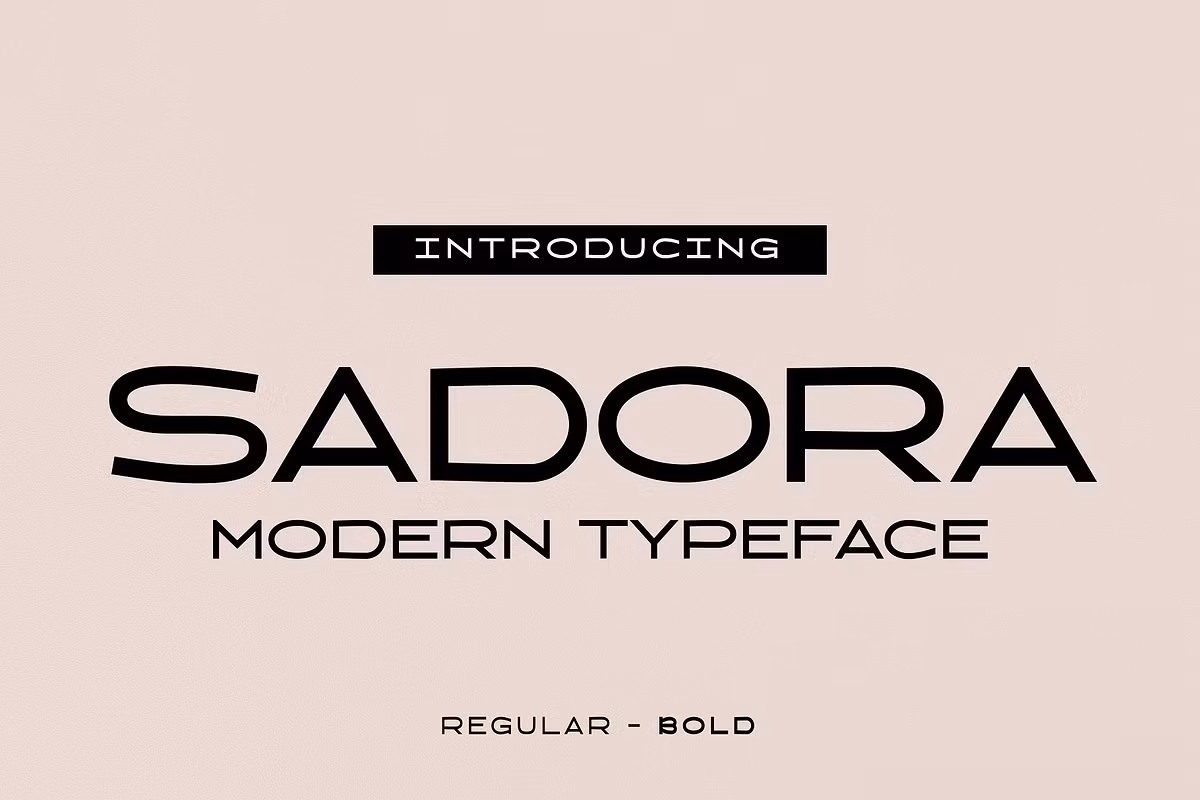
You must purchase this font for commercial use. However, you can download Sadora – Sophisticated Modern Sans Font Free Download for testing purposes. Sadora is a clean, refined sans-serif font that embodies elegance, clarity, and modern minimalism. Perfect for luxury branding, web design, fashion editorials, product packaging, and corporate identities, Sadora delivers a professional and polished look in every use.
With its balanced letterforms, smooth curves, and versatile structure, Sadora offers excellent readability across both print and digital formats. Its modern simplicity allows it to pair beautifully with serif fonts or stand confidently on its own. Whether you're designing a sleek logo, building a stylish website, or creating high-end marketing materials, Sadora – Sophisticated Modern Sans Font Free Download is the ideal typeface to test your creative ideas. Be sure to purchase the appropriate license for any commercial applications. Download Sadora – Sophisticated Modern Sans Font Free Download today and elevate your design projects with timeless sophistication.